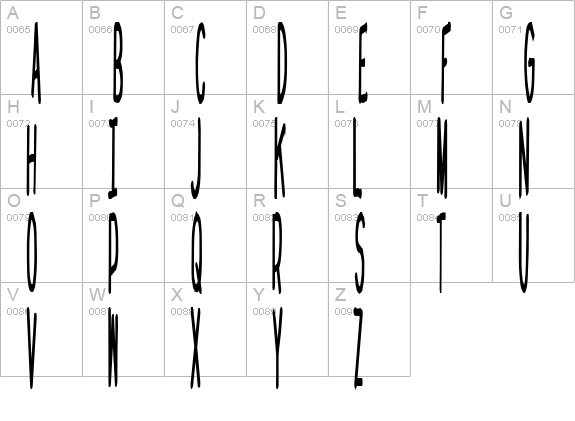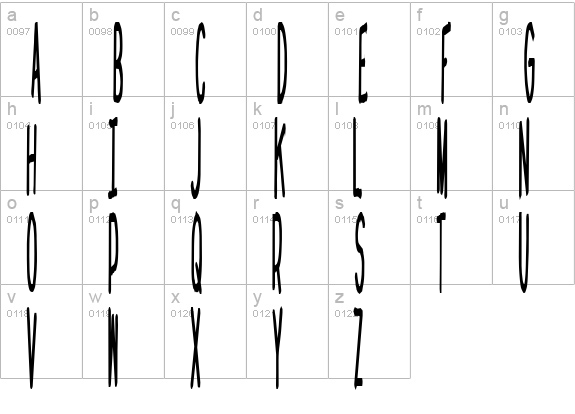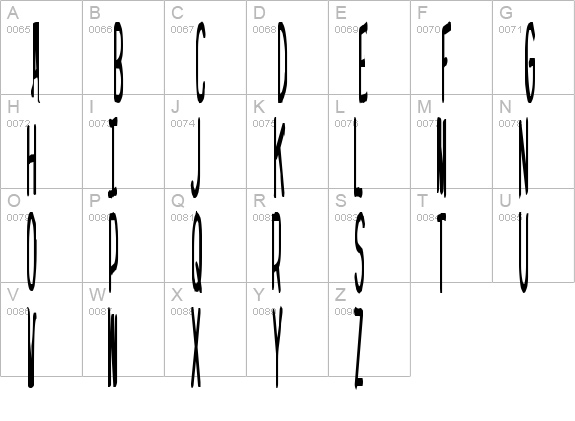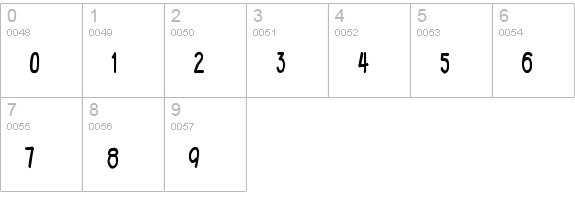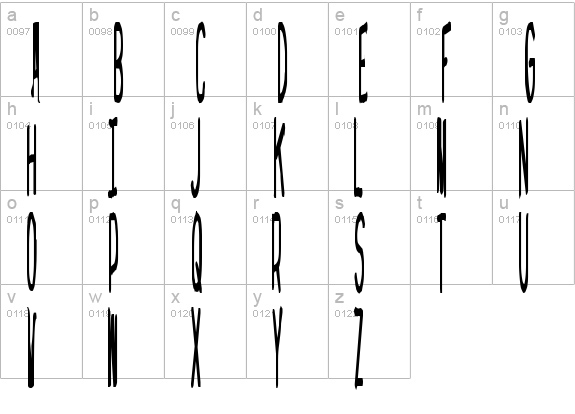
Homeboysarebackintown font is a stylish and bold typeface that exudes confidence and urban flair. With its strong lines and edgy aesthetic, this font is perfect for making a statement in your designs. Whether you're working on a poster, logo, or branding project, Homeboysarebackintown font will add a touch of coolness and attitude. Best of all, this font is completely free to download at FontsMarket.com. So why wait? Get your hands on Homeboysarebackintown font today and elevate your designs to the next level with its unique and eye-catching style.